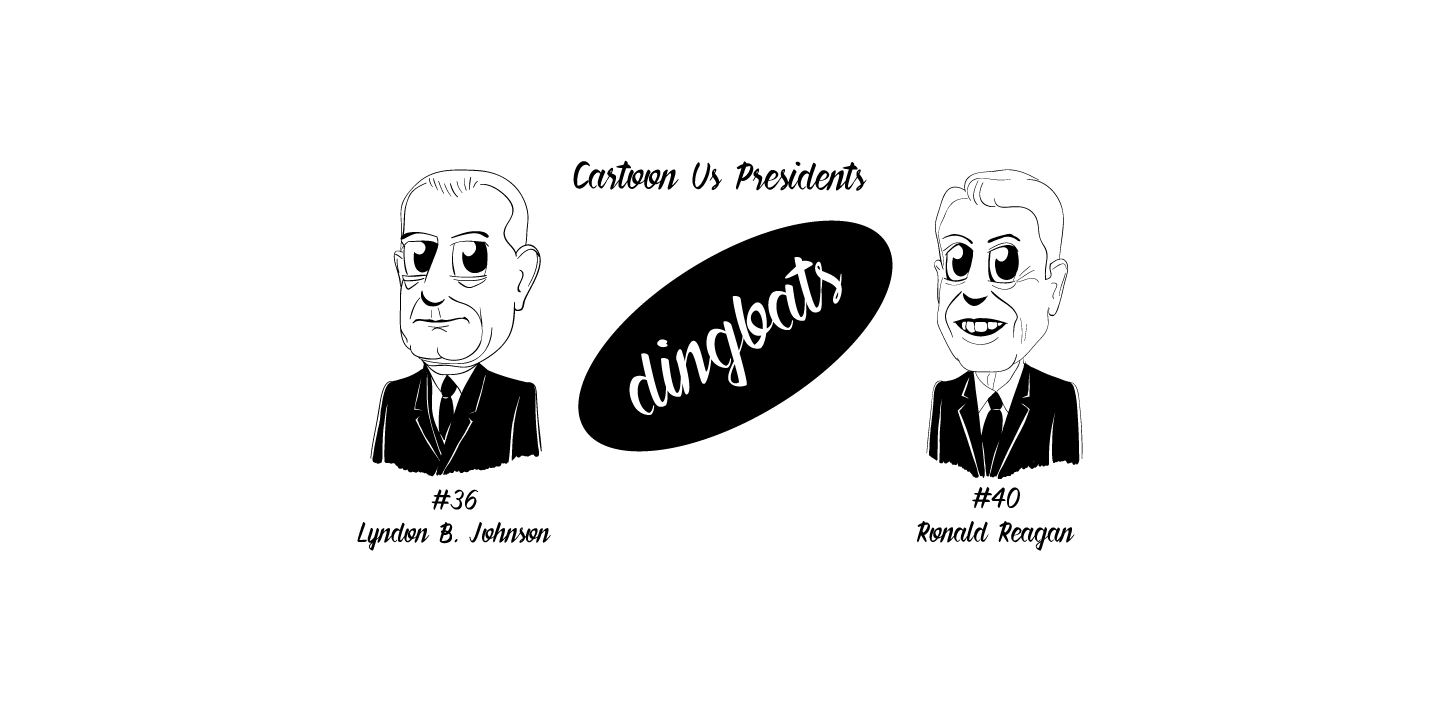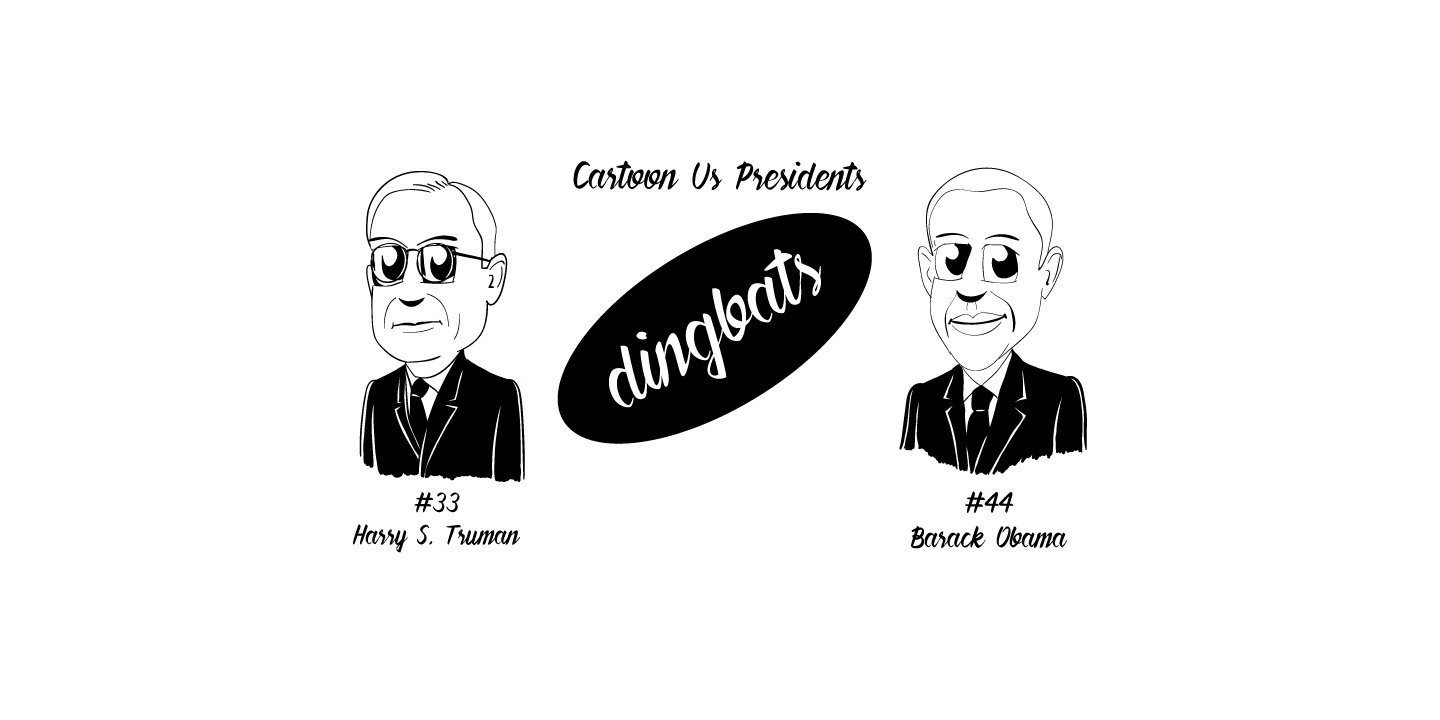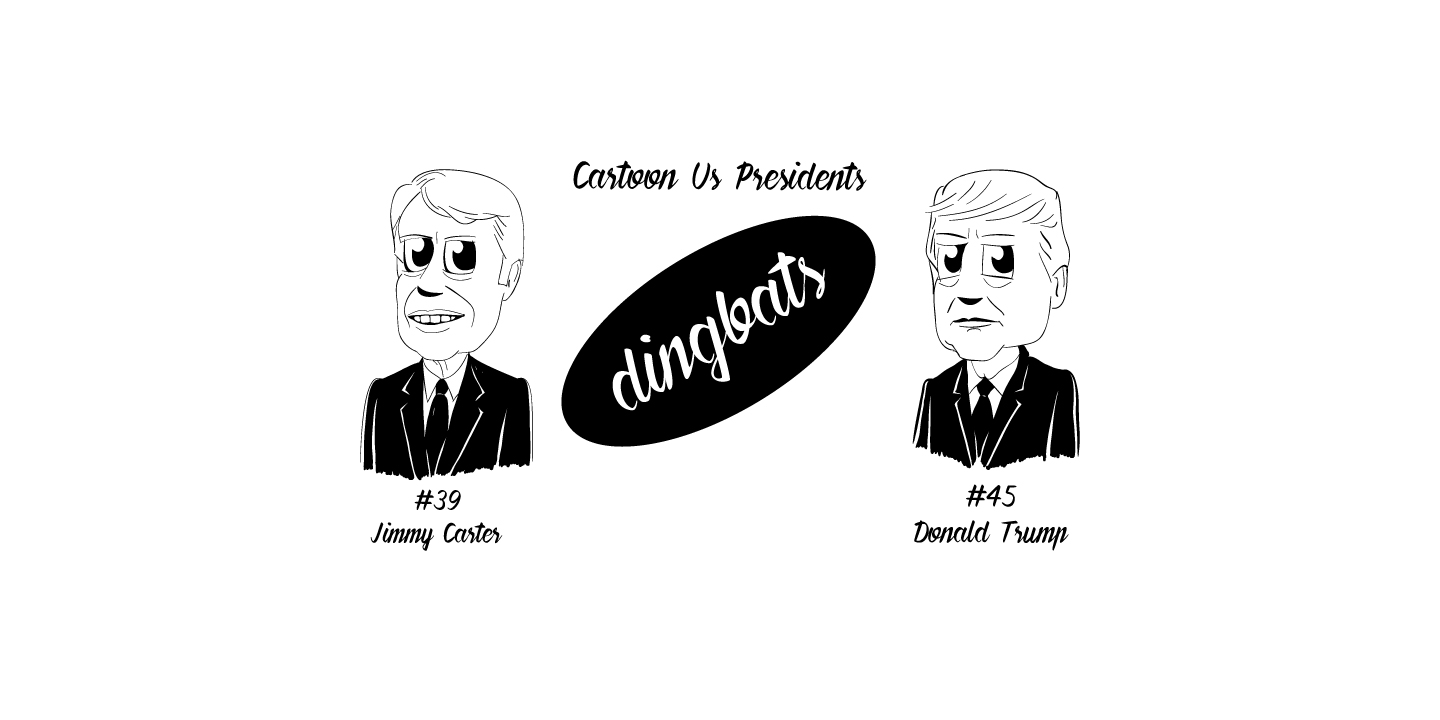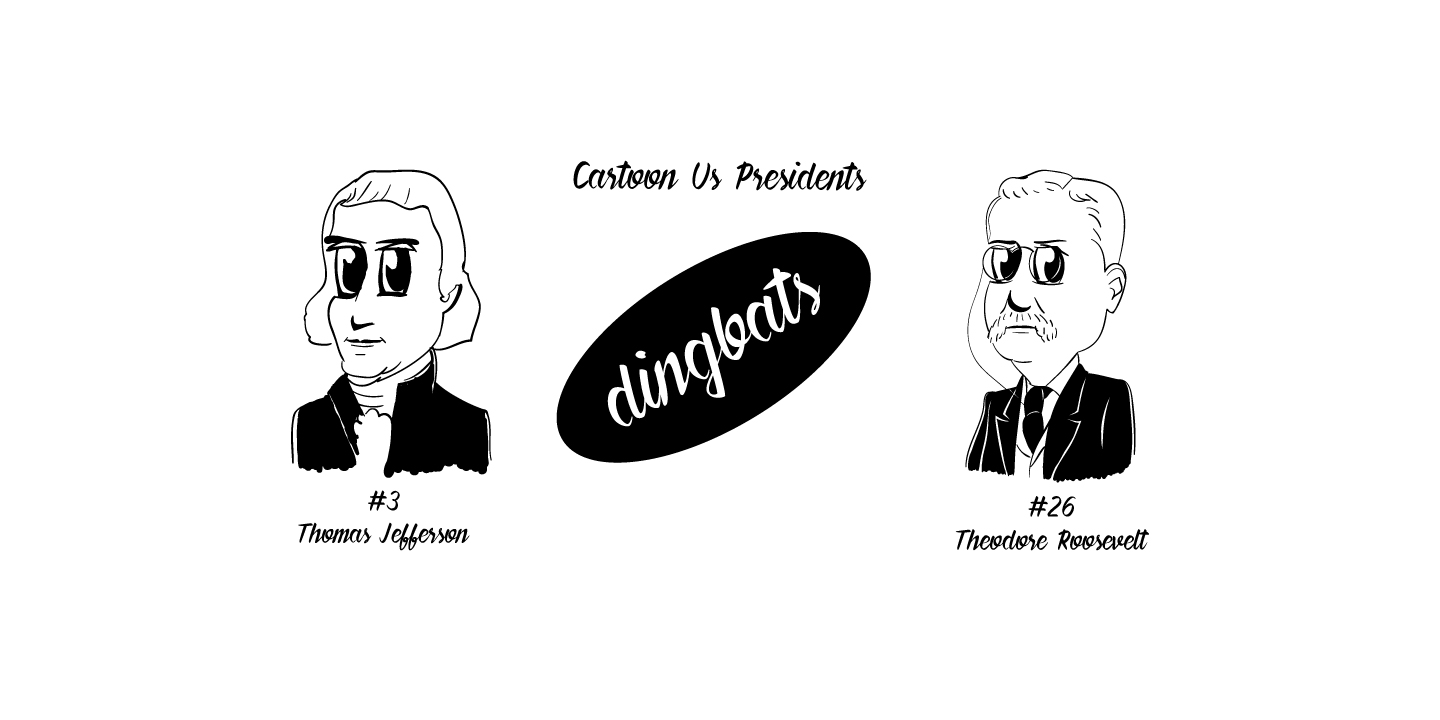
About Cartoon US Presidents Dingbats Font
The Cartoon US Presidents Dingbats font is a delightful collection of hand-drawn cartoons representing all the presidents of the United States to date. This unique and fun font captures the essence of each president in a playful and engaging manner.
Whether you’re working on an educational project, designing materials related to American history, or simply looking to add a touch of whimsy to your designs, this font is a perfect choice. Each cartoon captures the distinctive features and characteristics of the presidents, making it both informative and entertaining.
With the Cartoon US Presidents Dingbats font, you can easily incorporate these charming cartoons into your designs. Whether you want to create educational materials, decorate a presentation, or add a touch of presidential flair to your personal projects, this font provides a versatile and engaging set of dingbats.
Celebrate the rich history of the United States and its leaders with this fun and informative font. From George Washington to the current president, each cartoon brings a unique personality to life. Let the Cartoon US Presidents Dingbats font be your creative tool to educate, entertain, and decorate with a touch of presidential charm.